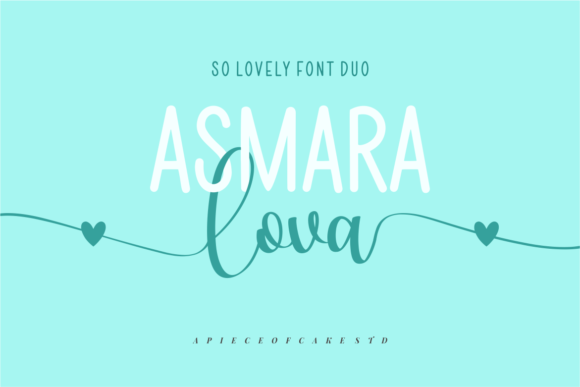
The Quest for the Perfect Handwritten Font: Discovering Asmaralova
I still remember the time I was working on a project for a client’s wedding invitation. I had the design all planned out, but I just couldn’t find the right font to give it that personal, romantic touch. I scoured the internet, tried out countless fonts, but nothing seemed quite right. That was until I stumbled upon Asmaralova Font. It was like a breath of fresh air – delicate, stylish, and perfect for adding a handwritten touch to any creative project.
An Honest Review of Asmaralova Font
Asmaralova Font is a stunning duo font that has quickly become a favorite in my design arsenal. Here’s what I love about it:
- ✨ Delicate and stylish: Asmaralova Font has a beautiful, handwritten feel that’s perfect for adding a touch of elegance to any design.
- ✅ Versatile: This font is suitable for a wide range of applications, from greeting cards to headlines, and even social media graphics.
- ✨ Easy to read: Despite its delicate nature, Asmaralova Font is surprisingly easy to read, making it perfect for longer blocks of text.
Of course, no font is perfect, and Asmaralova Font does have a few small quirks:
- 🤔 Limited use of OpenType features: While Asmaralova Font does have some basic OpenType features, it’s not as extensive as some other fonts on the market.
- ⚠️ May not be suitable for very small text: Due to its delicate nature, Asmaralova Font may not be the best choice for very small text, such as body copy or captions.
The Story Behind Asmaralova Font
Asmaralova Font was designed by a team of skilled typographers who wanted to create a font that would add a touch of elegance and sophistication to any design. The font is named after a fictional character, Asmaralova, who embodies the qualities of creativity, beauty, and romance. The designers drew inspiration from traditional handwritten fonts, but with a modern twist.
| Font Name | Asmaralova Font |
| Q: What is Asmaralova Font? | A: Asmaralova Font is a stylish and delicate handwritten duo font suitable for a wide range of applications. |
| Q: Is Asmaralova Font easy to read? | A: Yes, despite its delicate nature, Asmaralova Font is surprisingly easy to read, making it perfect for longer blocks of text. |
| Q: Does Asmaralova Font have OpenType features? | A: Yes, Asmaralova Font has some basic OpenType features, including stylistic alternates and glyphs. |